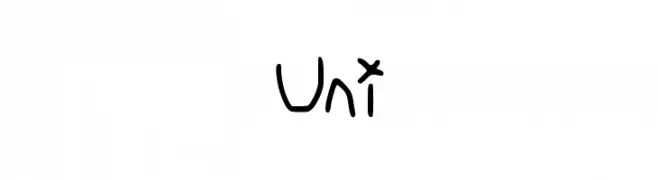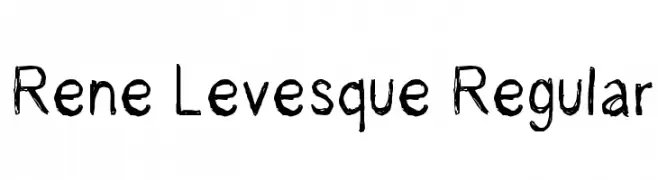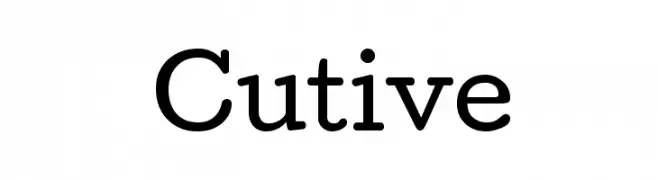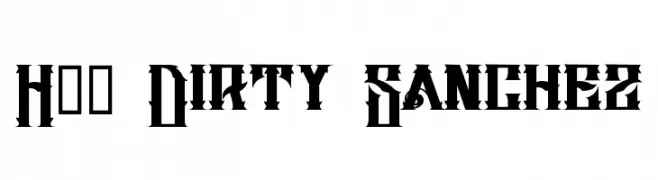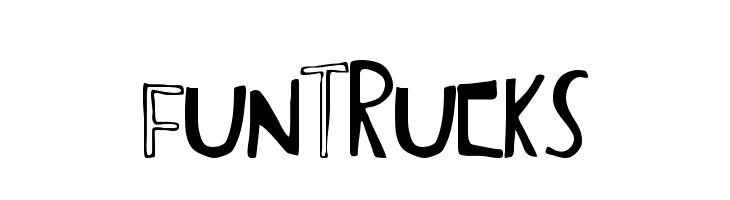
A playful handwritten font with tall, narrow letters and a casual style.
A rough, hand-drawn font with a vintage, distressed look.
A classic serif typeface with a clean, traditional design and typewriter-inspired aesthetics.
A classic serif typeface with clean, readable letterforms and a formal aesthetic.
A bold, decorative font with angular edges and intricate detailing.
A casual, handwritten font with varied stroke thickness and a playful appearance.
A bold, geometric font with sharp angles and a futuristic style.